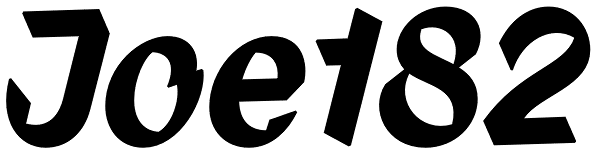
Joe182
A script face based on the authentic traces left by a thick chisel-tip marker, Joe182 was named after the atmosphere of the streets of New York City in the 1970s and 80s, where this script could be seen on almost every street corner in the city’s...